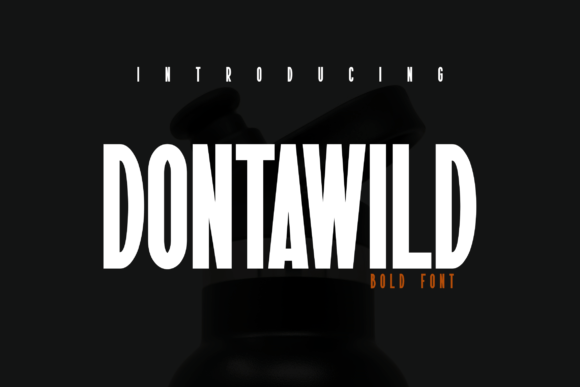
Dontawild Font: The Bold and Modern Choice for Company Names
In the world of typography, fonts play a crucial role in conveying the tone and personality of a brand. When it comes to creating a lasting impression, a bold and eye-catching font can make all the difference. One such font that has gained popularity in recent times is the Dontawild Font. In this article, we’ll explore the features and benefits of using Dontawild Font for your company name and why it’s a popular choice among IT and digital studios.
What is Dontawild Font?
Dontawild Font is a bold and modern sans-serif font designed to make a statement. Its clean lines, sharp edges, and confident style make it an ideal choice for writing company names, headings, and titles. The font’s unique design ensures that it stands out from the crowd, making it perfect for brands looking to create a strong visual identity.
Who Can Use Dontawild Font?
Dontawild Font is particularly popular among studios and companies engaged in the information technology and digital fields. Its modern and sleek design resonates with the innovative and forward-thinking nature of these industries. However, its versatility makes it suitable for a wide range of applications, from tech startups to creative agencies, and even businesses looking to rebrand or refresh their image.
Benefits of Using Dontawild Font
- Attention-grabbing: Dontawild Font is designed to grab attention and make a statement. Its bold and confident style ensures that your company name or heading stands out from the crowd.
- Modern and sleek: The font’s clean lines and sharp edges give it a modern and sleek look that’s perfect for tech-savvy businesses and innovative companies.
- Versatile: Dontawild Font can be used in a variety of applications, from digital platforms to print materials, making it a versatile addition to your brand’s typography.
- Easy to read: Despite its bold style, Dontawild Font is easy to read, even in smaller sizes, making it suitable for use on various platforms, including mobile devices.
Tips for Using Dontawild Font Effectively
- Pair it with a neutral font: To create visual balance, pair Dontawild Font with a neutral font for body text or other secondary elements.
- Use it sparingly: While Dontawild Font is attention-grabbing, it’s best to use it sparingly to avoid overwhelming the viewer. Use it for headings, titles, or company names, and opt for a more neutral font for body text.
- Experiment with colors: Dontawild Font looks great in a variety of colors. Experiment with different hues and shades to find the perfect combination that reflects your brand’s personality.
Dontawild Font is a bold and modern font that’s perfect for writing company names, headings, and titles. Its clean lines, sharp edges, and confident style make it an ideal choice for brands looking to create a strong visual identity. With its versatility, attention-grabbing style, and ease of use, Dontawild Font is a great addition to any project. So why not give it a try and see the impact it can have on your brand’s typography?